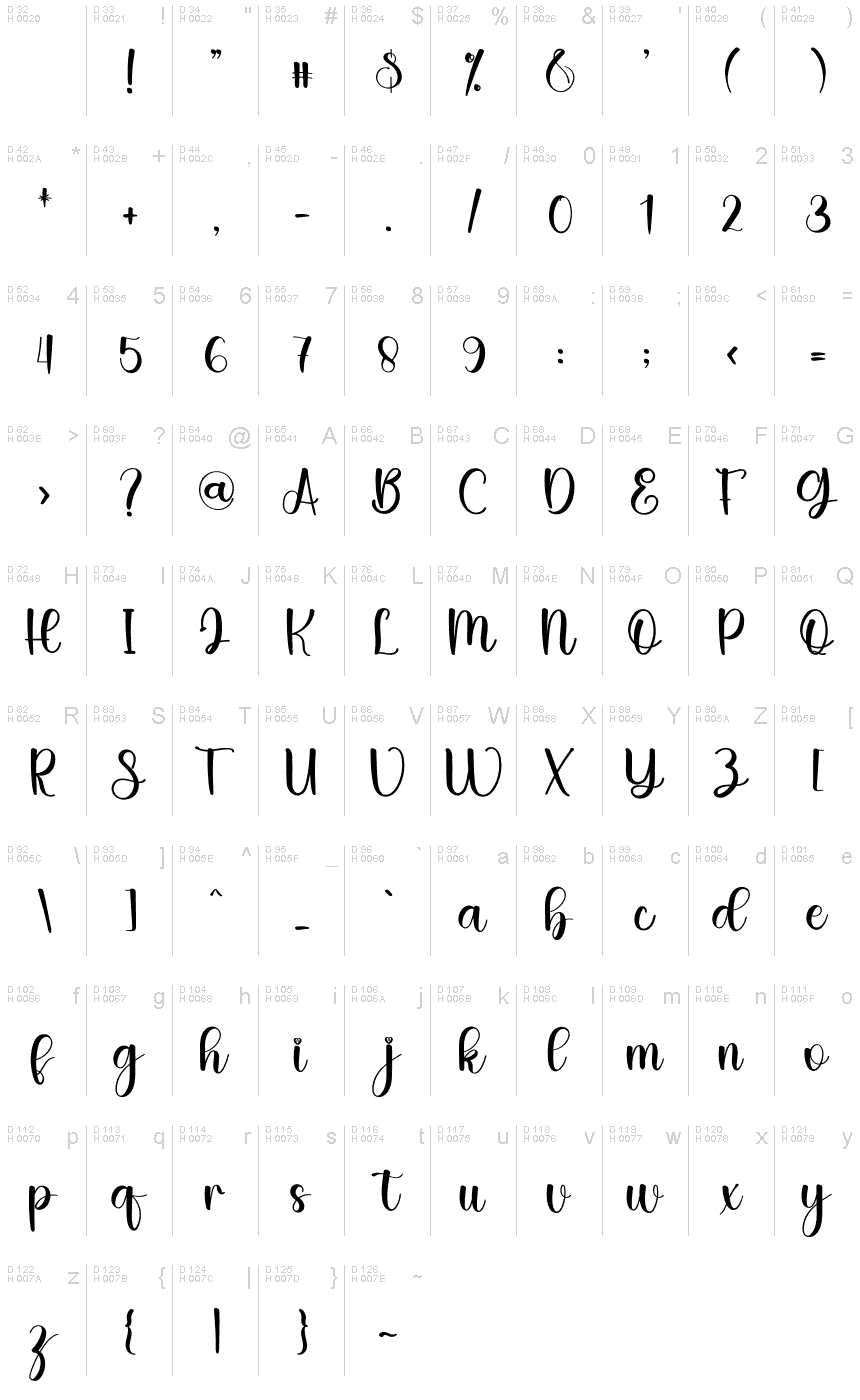
Blessful
Blessful, a captivating calligraphy font by Inermedia Studio, exudes elegance and sophistication. With its graceful strokes and fluid letterforms, this font adds a touch of refinement to any project. Perfect for wedding invitations, high-end branding, or luxurious product packaging, Blessful emanates romance and charm. Its versatility allows it to be utilized in various creative endeavors such as fashion magazines or elegant restaurant menus. Whether used in print or digital design, the semi-bold typeface of Blessful effortlessly captures attention and leaves a lasting impression on viewers. Elevate your designs with the timeless beauty of Blessful!